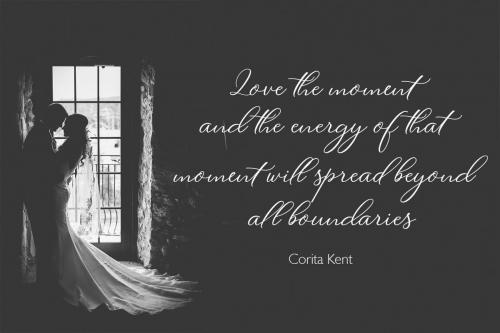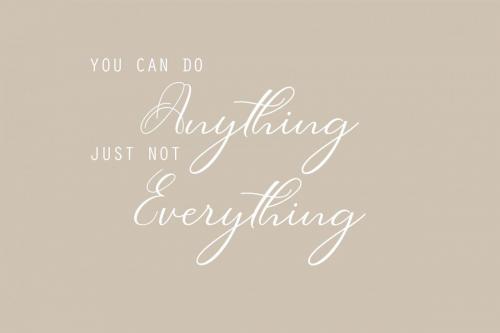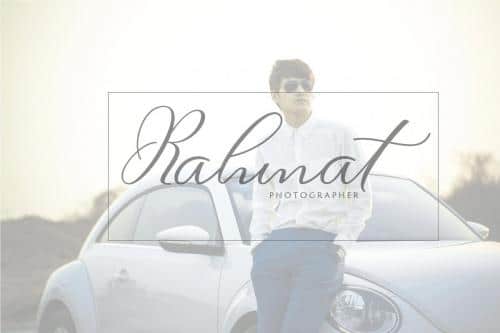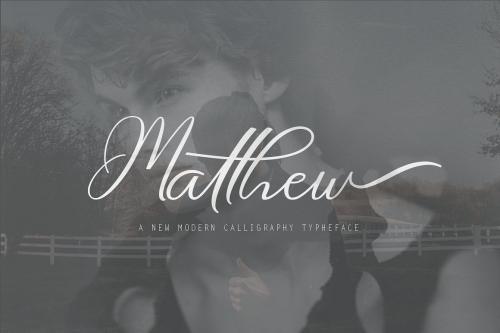
Matthew is a gorgeous calligraphy font, combining the sensibility of both modern and classic cursive script. This is a great font for use in special event works, and comes with alternates for unique typography and branding opportunities.